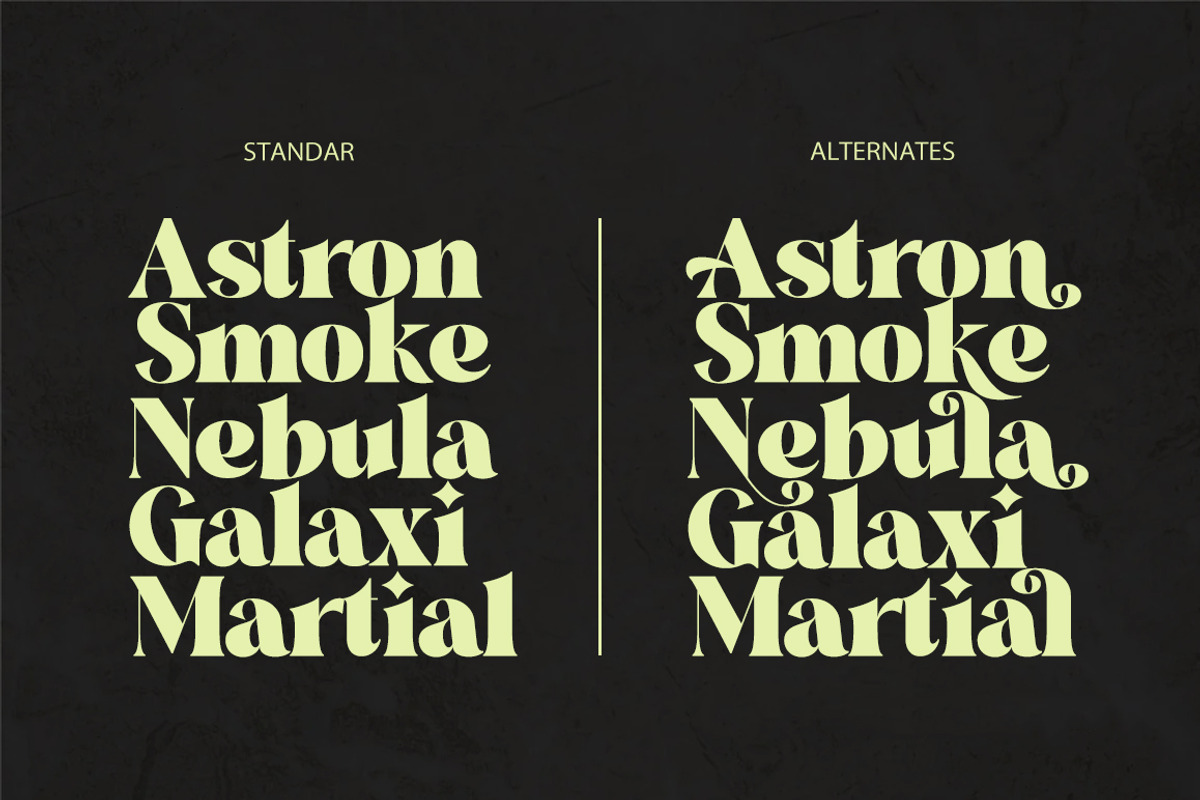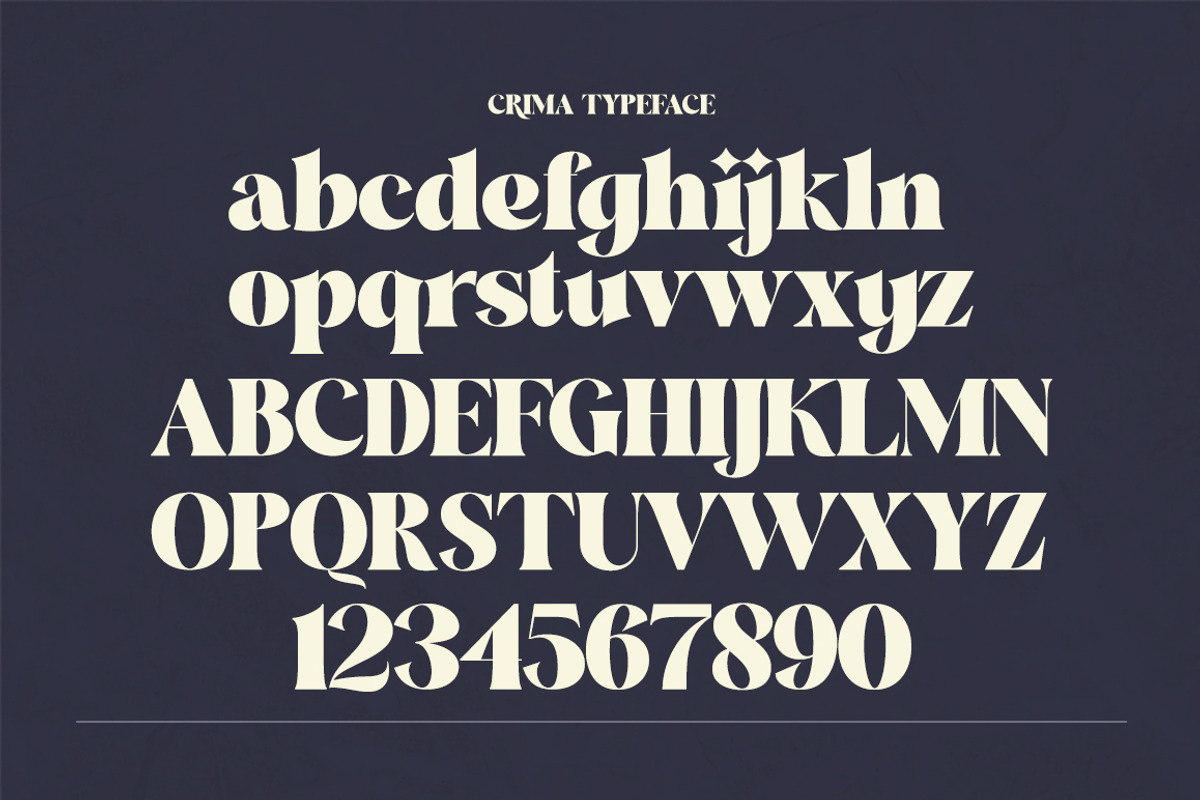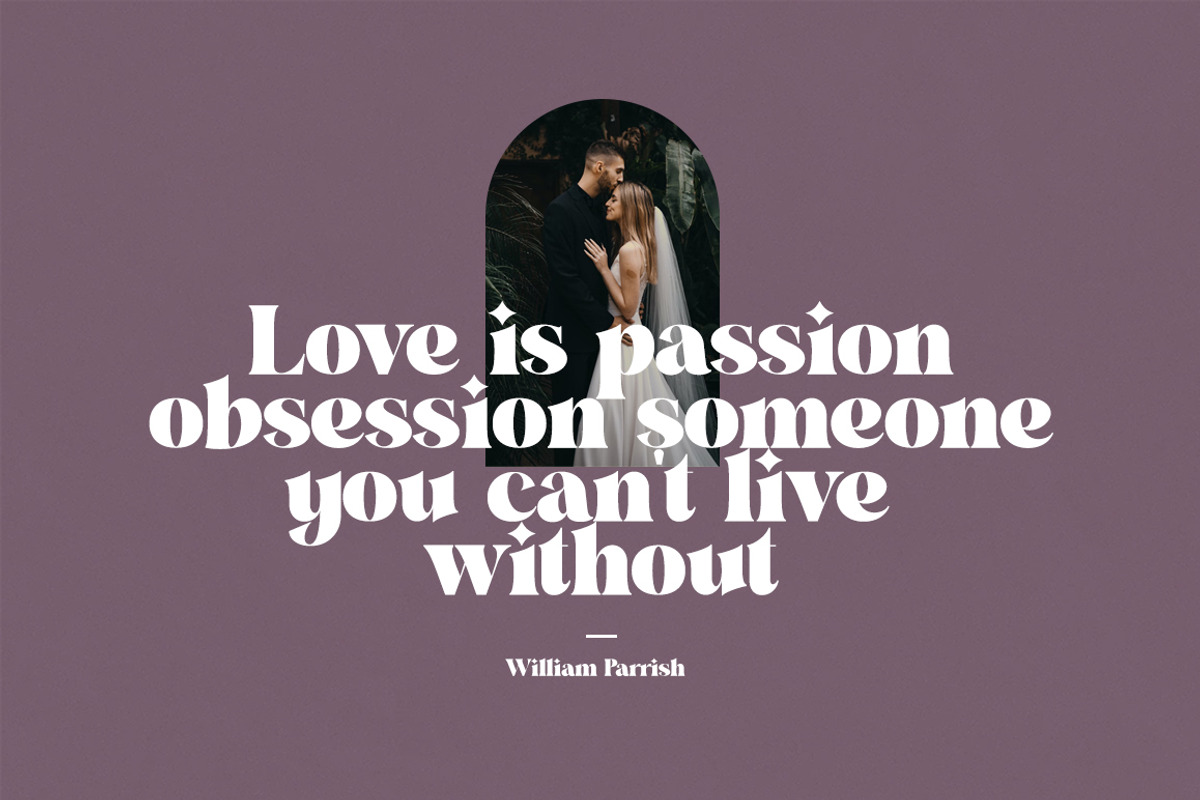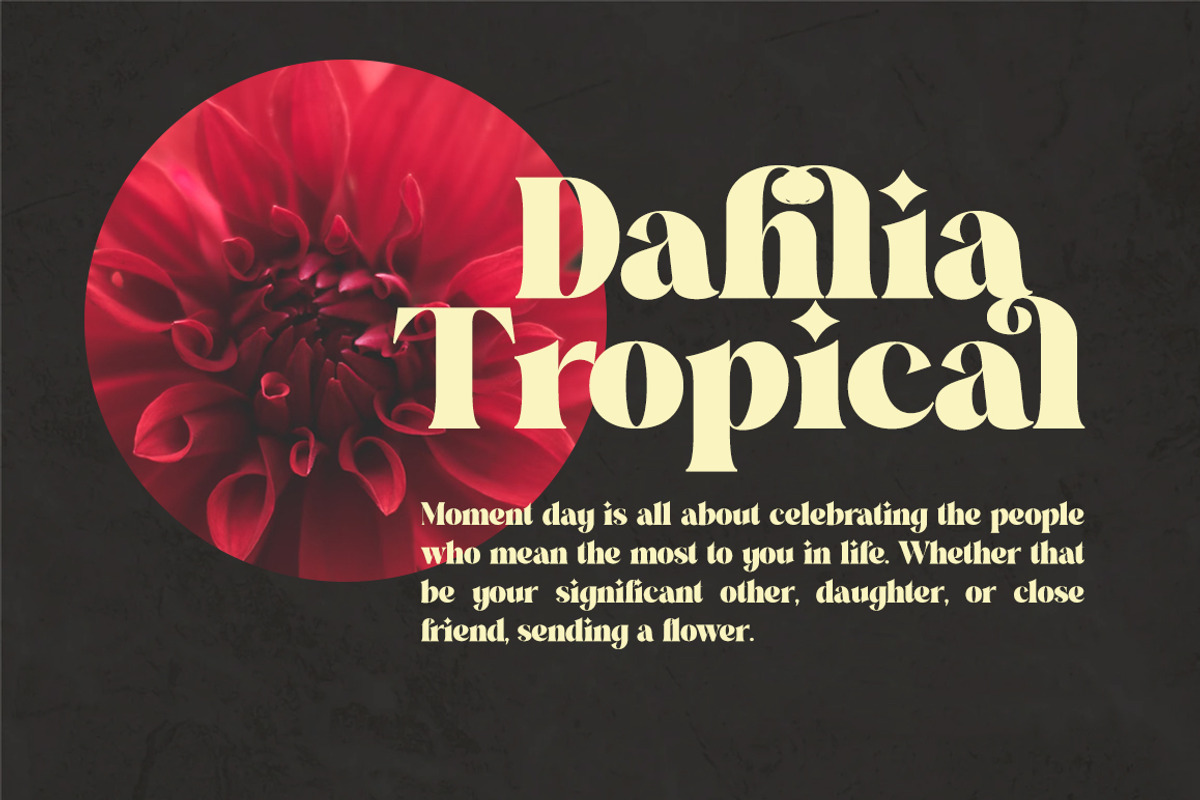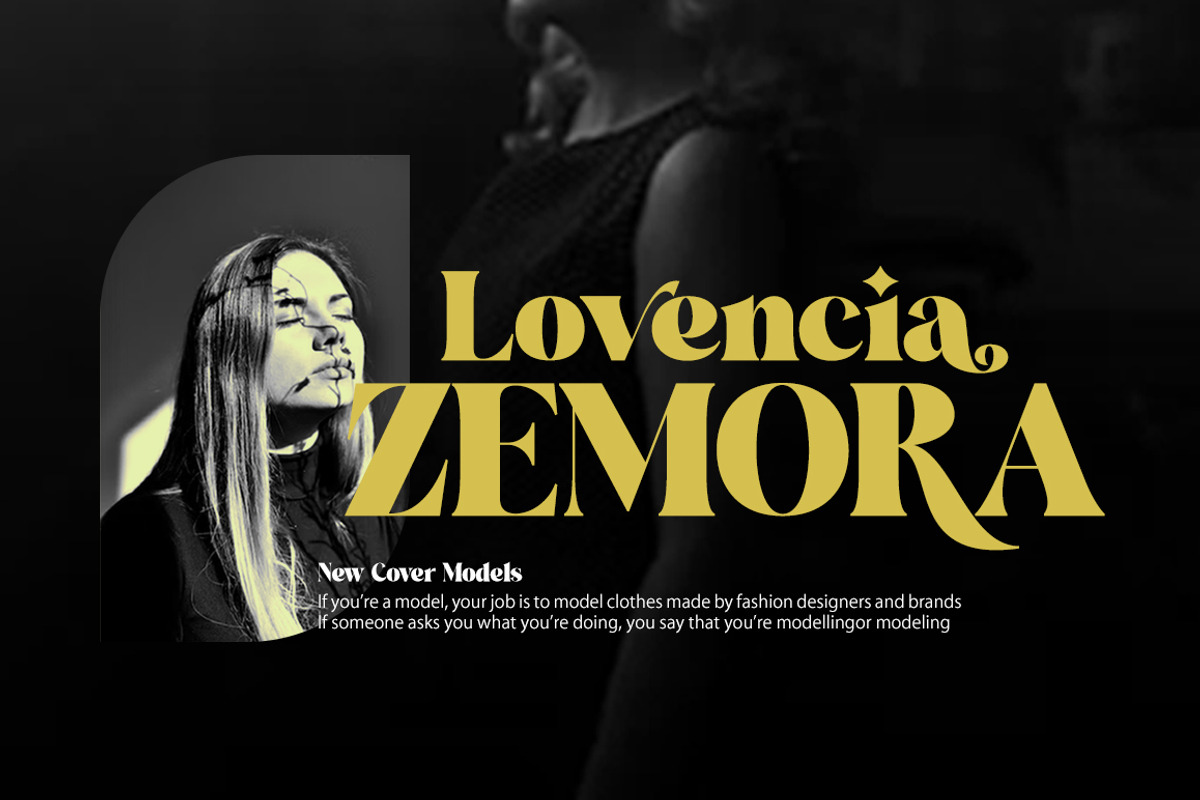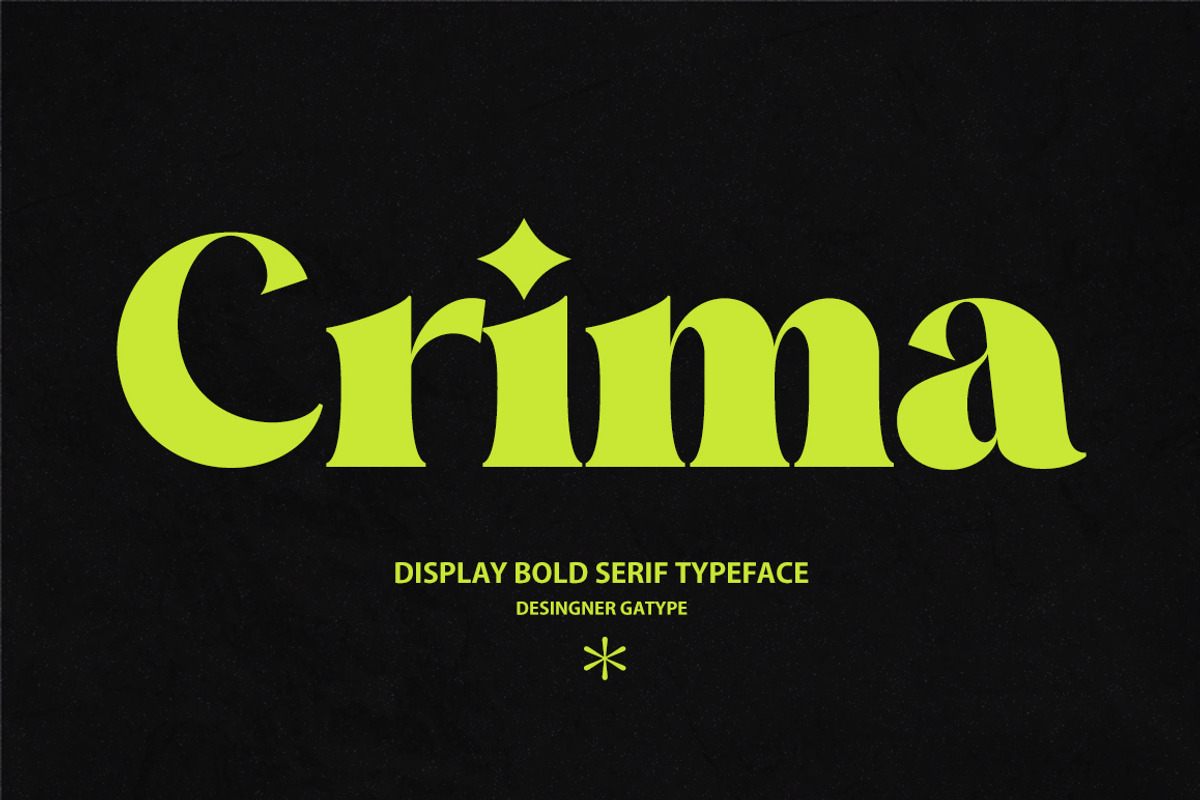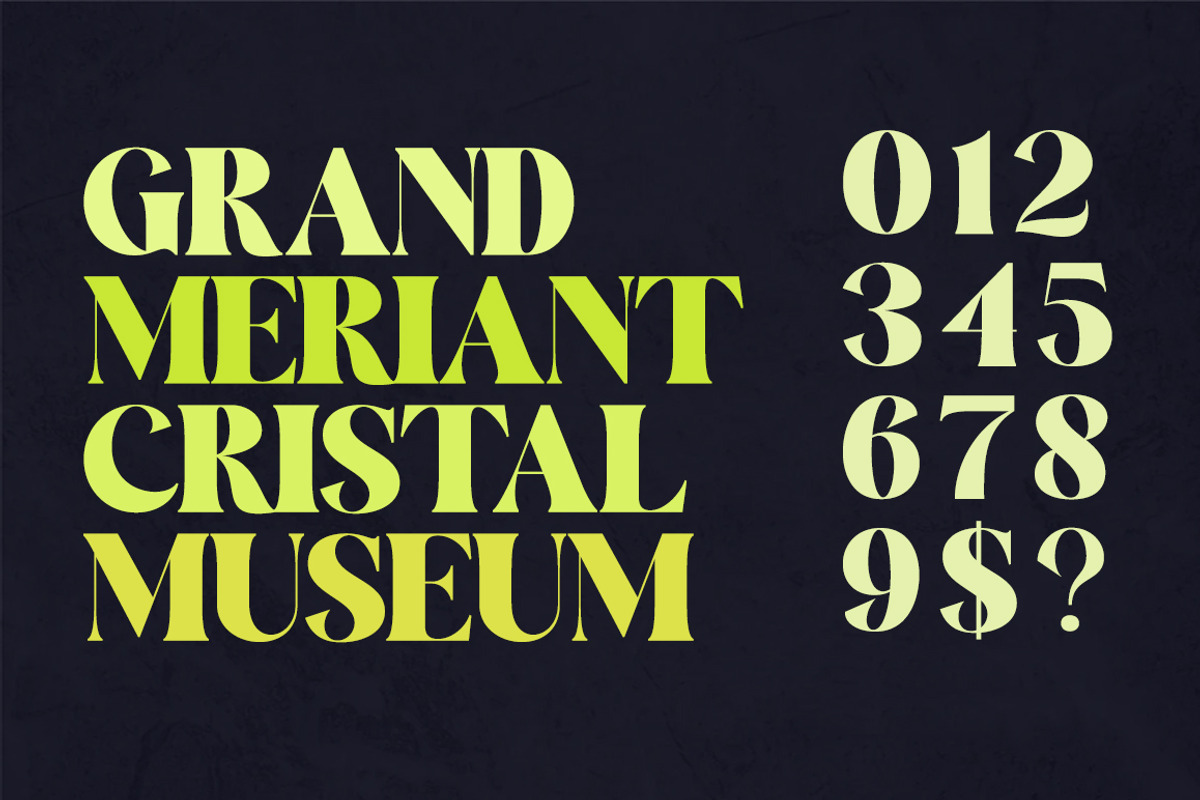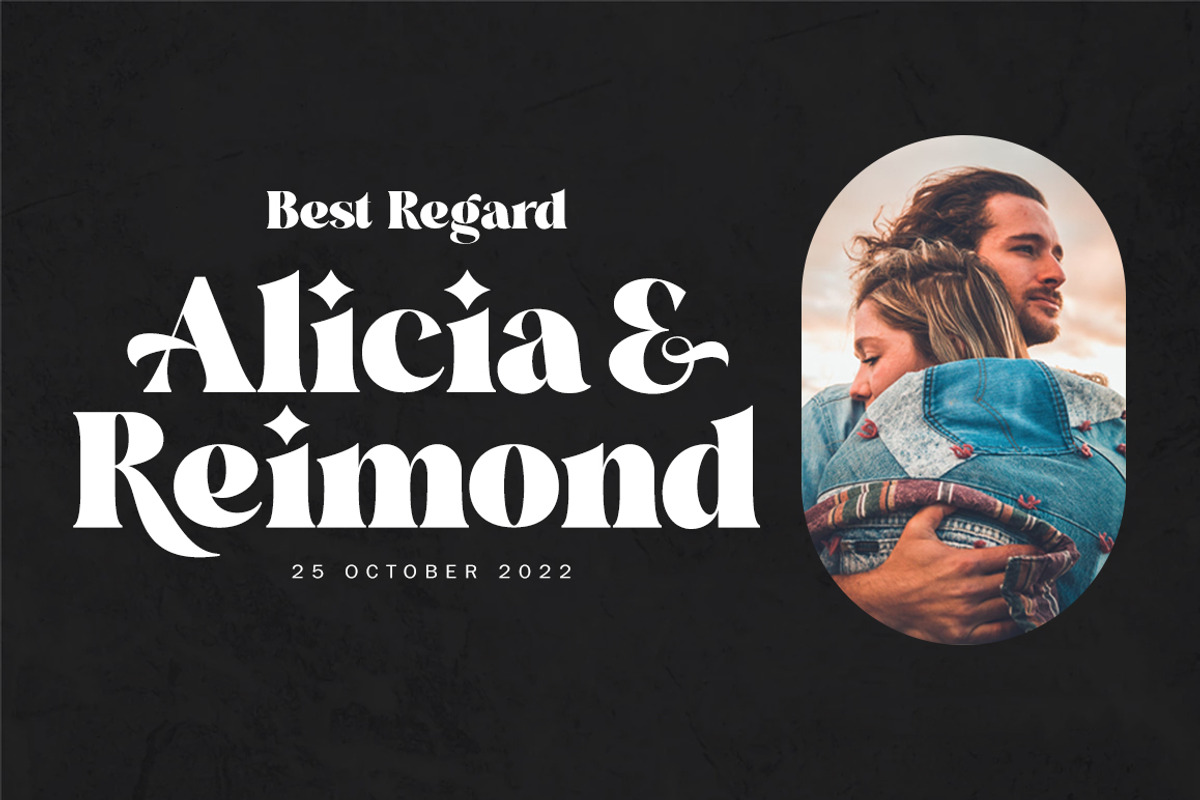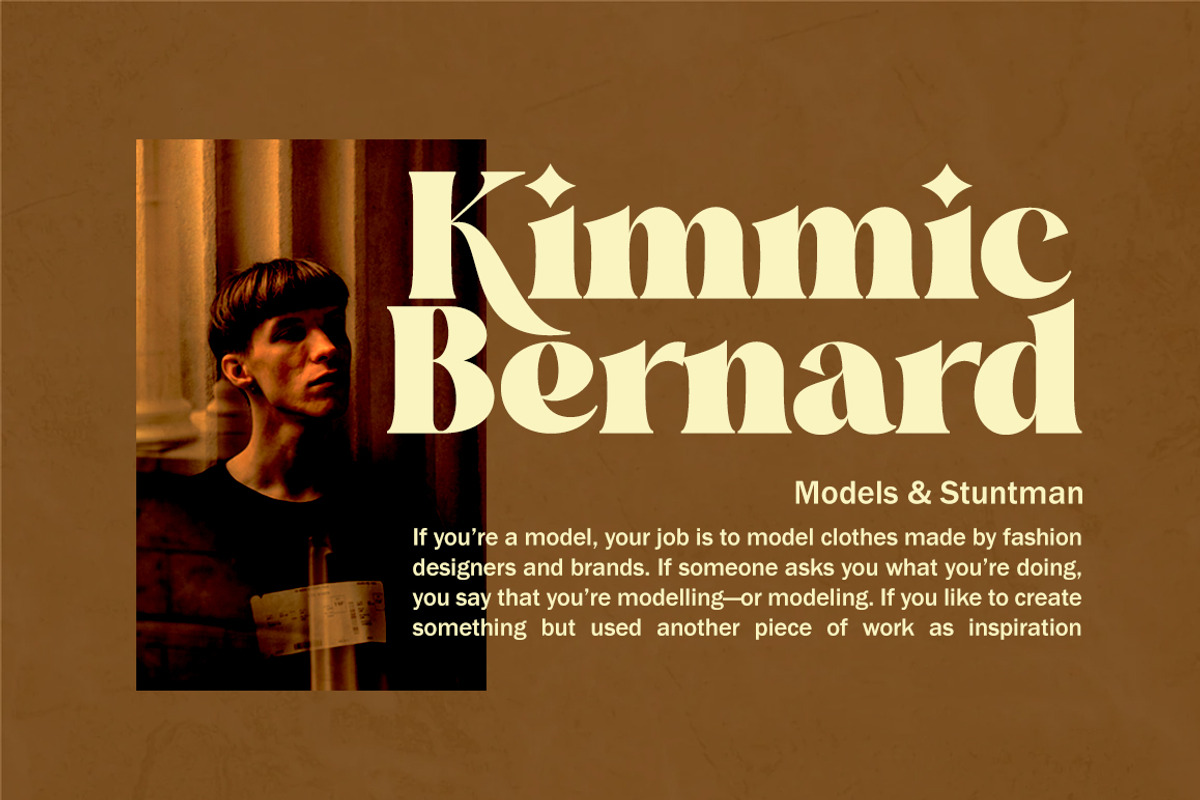
Crima
Crima Font Black Serif totality and elegance. One of the newest releases that can only be done now, naturally drawn with pinpoint accuracy. Crima has the perfect signature and subtlety for your next project. It perfectly represents the retro and vintage aesthetic. I recommend this font for your next logo, invitation, and home decor project that needs a succinct alternative combination touch!
The Criman font comes with available strong characters: Get inspired by the image above and feel free to share with me what you get by using this font.